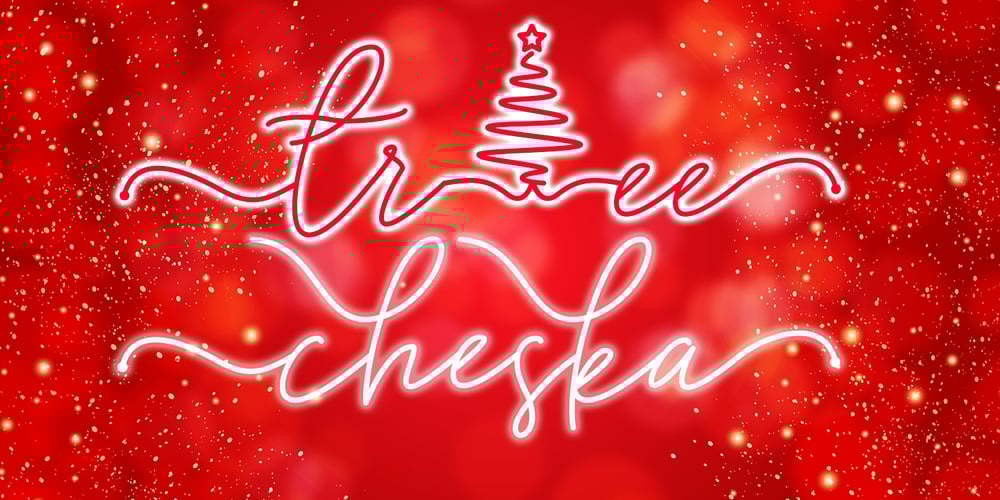
Tree Cheska Font Family was designed by Mohamad Candirah and published by MC Creative. Tree Cheska contains 1 styles and family package options. Tree Cheska monoline script font which natural movement and suitable for theme christmas and other. is perfect for branding projects, logo, wedding designs, social media posts, advertisements, product packaging, product designs, label, photography, watermark, invitation, stationery and any projects that need handwriting taste.What’s Included : Standard Glyphs Ligature & Swash Works on PC & Mac Simple installations Accessible in the Adobe Illustrator, Adobe Photoshop, Adobe InDesign, even work on Microsoft Word. PUA Encoded Characters – Fully accessible without additional design software. Fonts include multilingual support for; ä ö ü Ä Ö Ü ß ¿ ¡